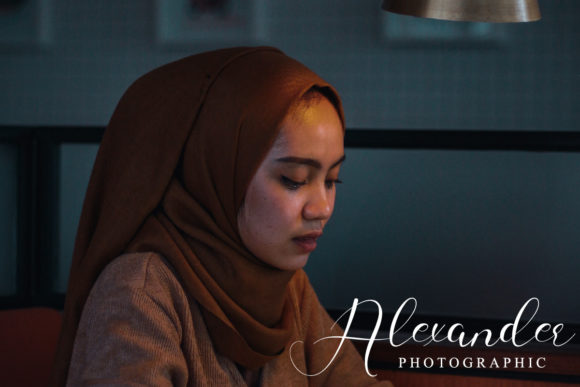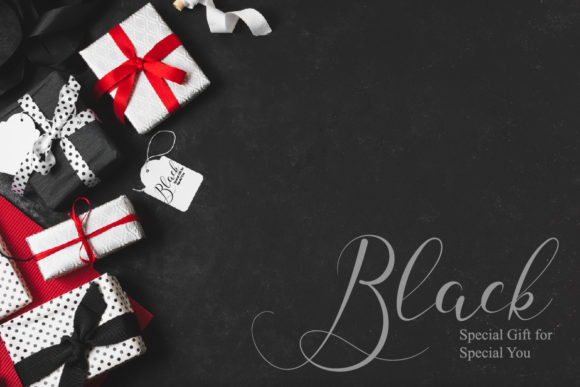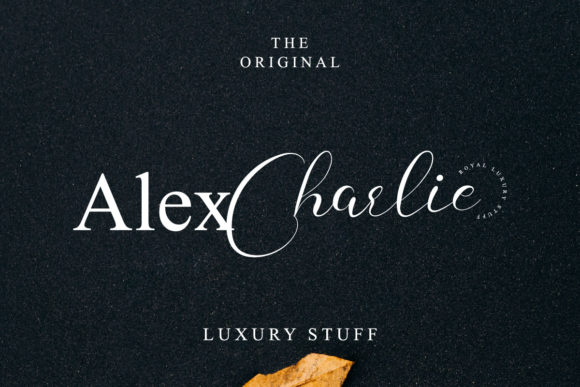
Unleash Your Creativity with the Sweetest Font Around
There’s something magical about holding a pen and watching your ideas come to life on paper. The scratch of the nib, the flow of the ink, and the satisfaction of bringing a character to life – it’s a feeling that never gets old. For designers and creatives, this moment is the spark that sets their imagination ablaze, and it’s where the beauty of typography comes in.
Enter the Juicely Font, an elegant and dainty handwritten font that features sweet and delicate swashes. This lovely font is PUA encoded, making it a joy to work with, as you can access all of the glyphs and swashes with ease. Whether you’re designing a wedding invitation, a children’s book, or a social media post, the Juicely Font adds a touch of whimsy and charm that’s sure to delight.
For designers, the Juicely Font is a valuable addition to their toolkit, offering a unique and versatile way to add personality to their projects. With its effortless elegance and playful flair, this font is sure to become a favorite among creatives who crave a little extra magic in their work.
Juicely Font Key Features
- Font Family: Juicely Font comes in three weights – Light, Regular, and Bold.
- Unique Characteristics: Juicely Font features a modern and playful design, with a unique blend of rounded and geometric shapes.
Juicely Font Review
I recently had the chance to work with the Juicely Font, and I have to say, it’s a mixed bag for me. ✨ Here are some things that work well:
- First, the font is super fun and playful. It’s got a great vibe that’s perfect for anything from children’s books to food blogs.
- It’s also great for displaying large amounts of text, like on a landing page or a blog post.
However, I have to mention some limitations. ⚠️
- The font can feel a bit too playful at times, which may not be suitable for more serious projects.
- The font may not be the best choice for small text, as it can be a bit hard to read.
Overall, I think the Juicely Font is a solid choice for projects that need a fun, playful vibe. Just be mindful of the limitations, and you’ll be golden.
Juicely Font is ideal for creating eye-catching titles, headings, and labels. Use it to add a touch of elegance and sophistication to your designs.
It’s also great for creating custom logos, branding materials, and marketing collateral.
Comparison: While Juicely Font is more playful and fun, Pacifico Font is more formal and elegant. Pacifico Font is ideal for use in high-end branding and marketing materials, whereas Juicely Font is better suited for younger or more casual audiences.
Comparison: While Juicely Font is more quirky and offbeat, Great Vibes Font is more polished and refined. Great Vibes Font is ideal for use in projects that require a sense of fun and energy, whereas Juicely Font is better suited for projects that require a sense of sophistication and elegance.
Carolyna Pro Font is a elegant, modern script font that is perfect for use in high-end branding and marketing materials. It is a great alternative to Juicely Font for designers who want to add a sense of sophistication and refinement to their designs.
Q: Does Juicely Font support advanced typographic features?
Yes, Juicely Font supports advanced typographic features, including ligatures, contextual alternates, and swashes. These features can be accessed using OpenType-aware software, such as Adobe Creative Cloud applications or other design tools that support OpenType font technology.